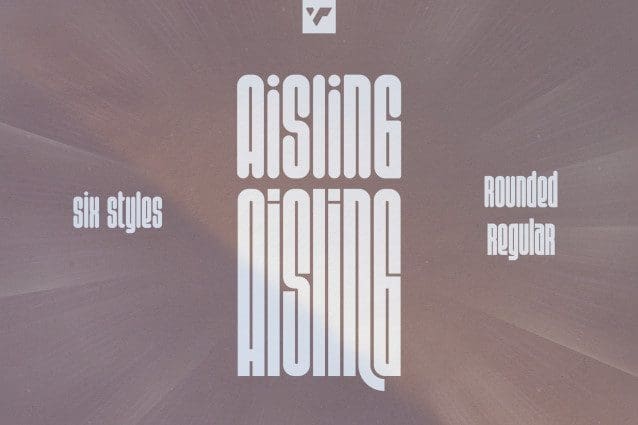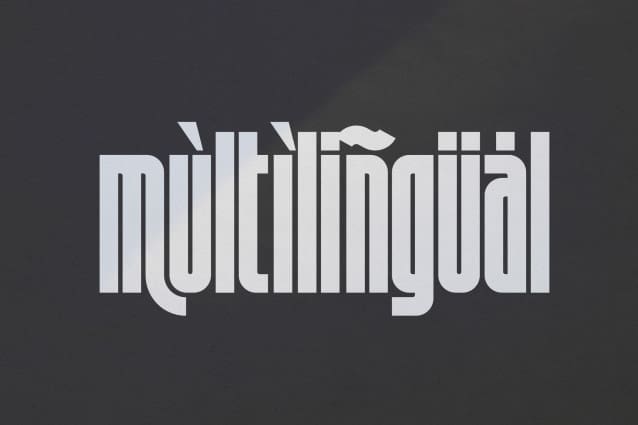
Aisling Sans Font
Aisling Sans Font is long, futuristic typeface with 6 fonts loaded with ligature glyphs, alternates and multilingual support to enchant your next project. Very versatile fonts that works great in large and small sizes.
Aisling is perfect for branding projects, home-ware designs, product packaging, magazine headers – or simply as a stylish text overlay to any background image.